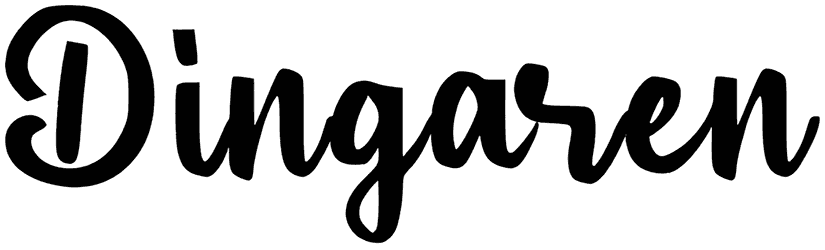
d Dingaren Font
If you really want to add an aesthetic touch to all of your creative ideas the such as social media posts, gift cards, brochures, flyers, or product packaging, then you should definitely take advantage of a marvelous script font similar to the d Dingaren.